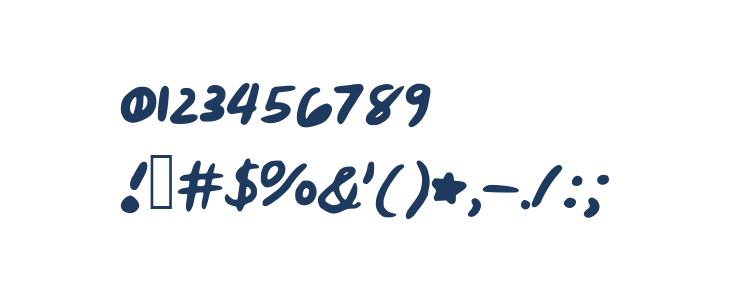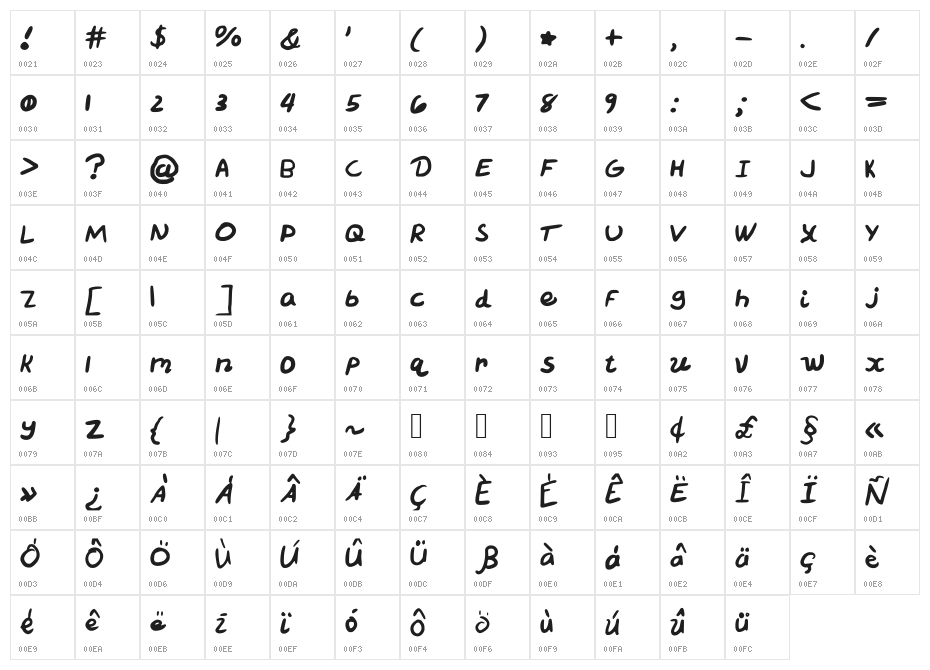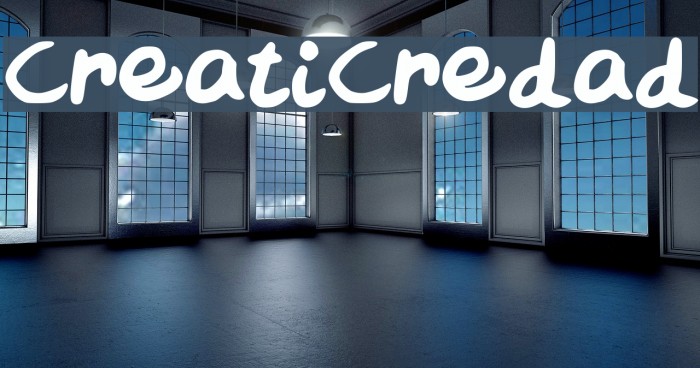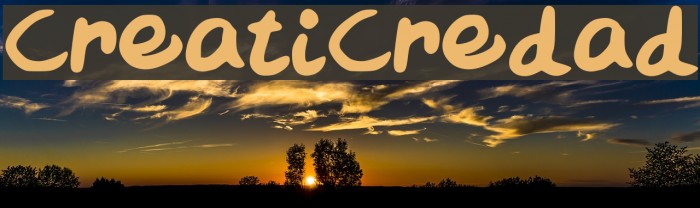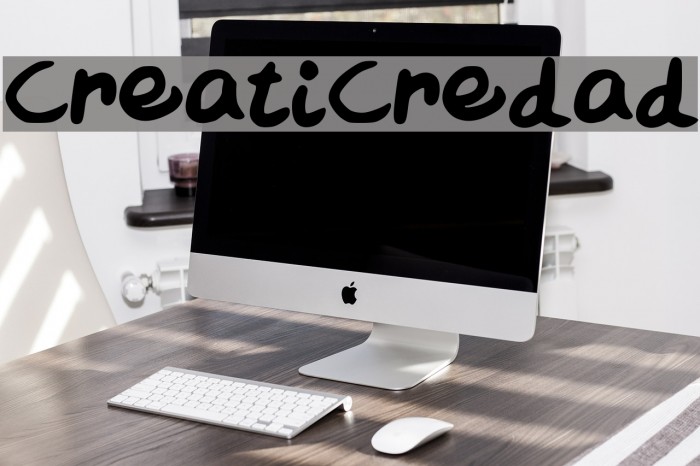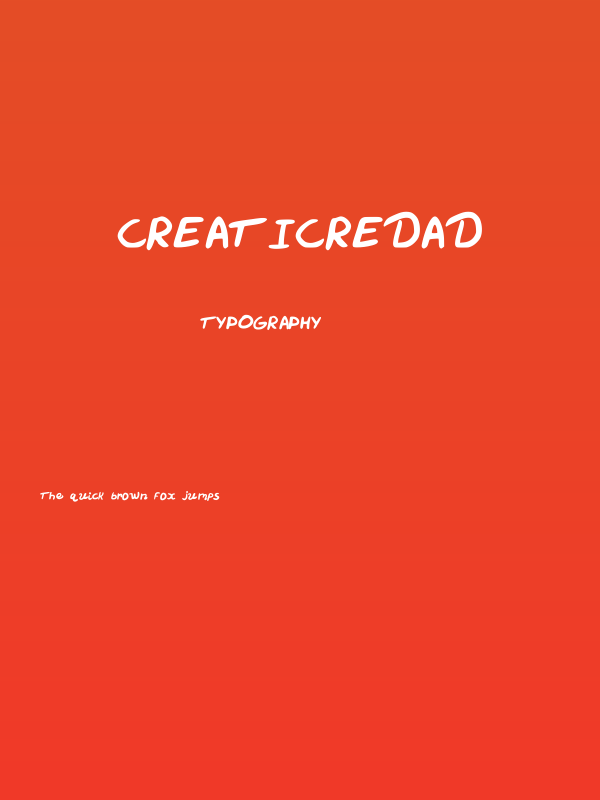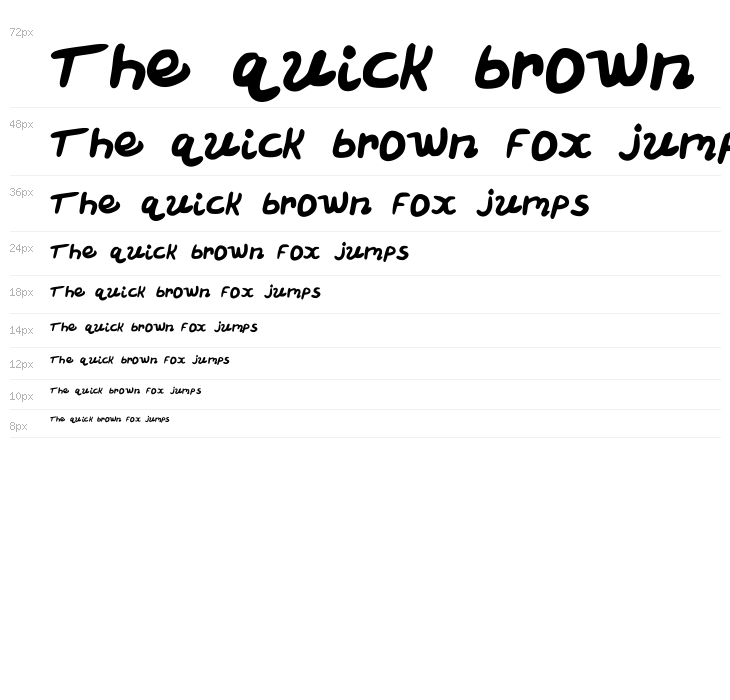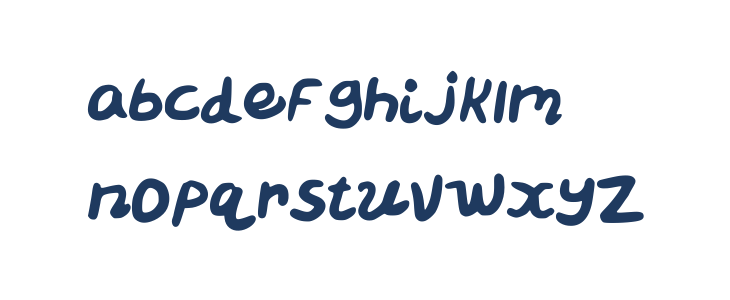
CreatiCredad Font
CreatiCredad Description
This font features a playful and bold handwritten style, characterized by its smooth, rounded edges and consistent stroke width. The letters are slightly slanted, giving a casual and dynamic appearance. The uppercase and lowercase letters maintain a uniform style, with the lowercase letters being slightly smaller and more compact. The numerals are clear and easy to read, matching the overall style of the alphabet. Special characters are included, maintaining the same playful and bold aesthetic. This font is ideal for projects that require a friendly and approachable look, such as children's books, casual invitations, or creative branding.
| Overall Style | Playful |
| Proposed Projects | Children's books, casual invitations, creative branding, playful posters. |